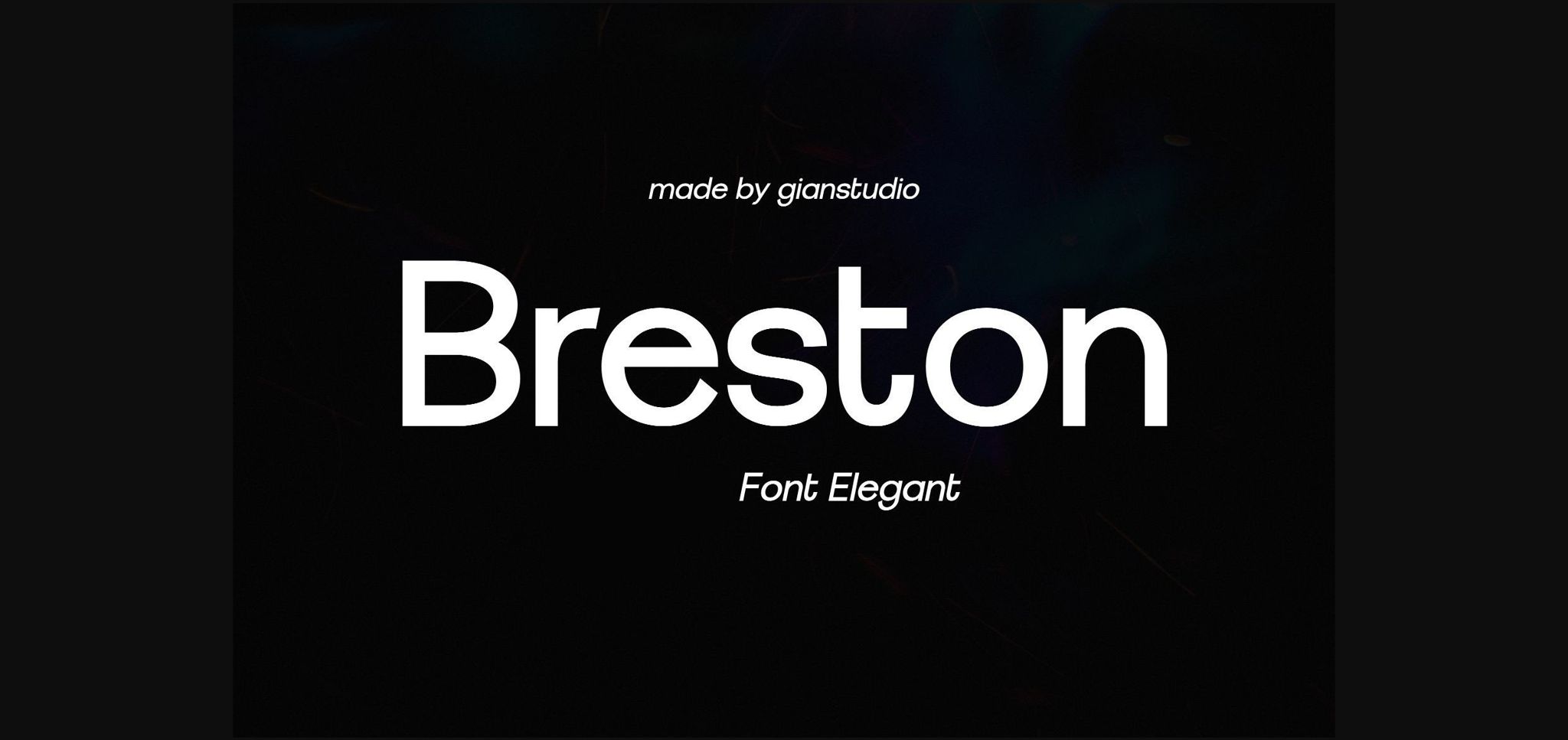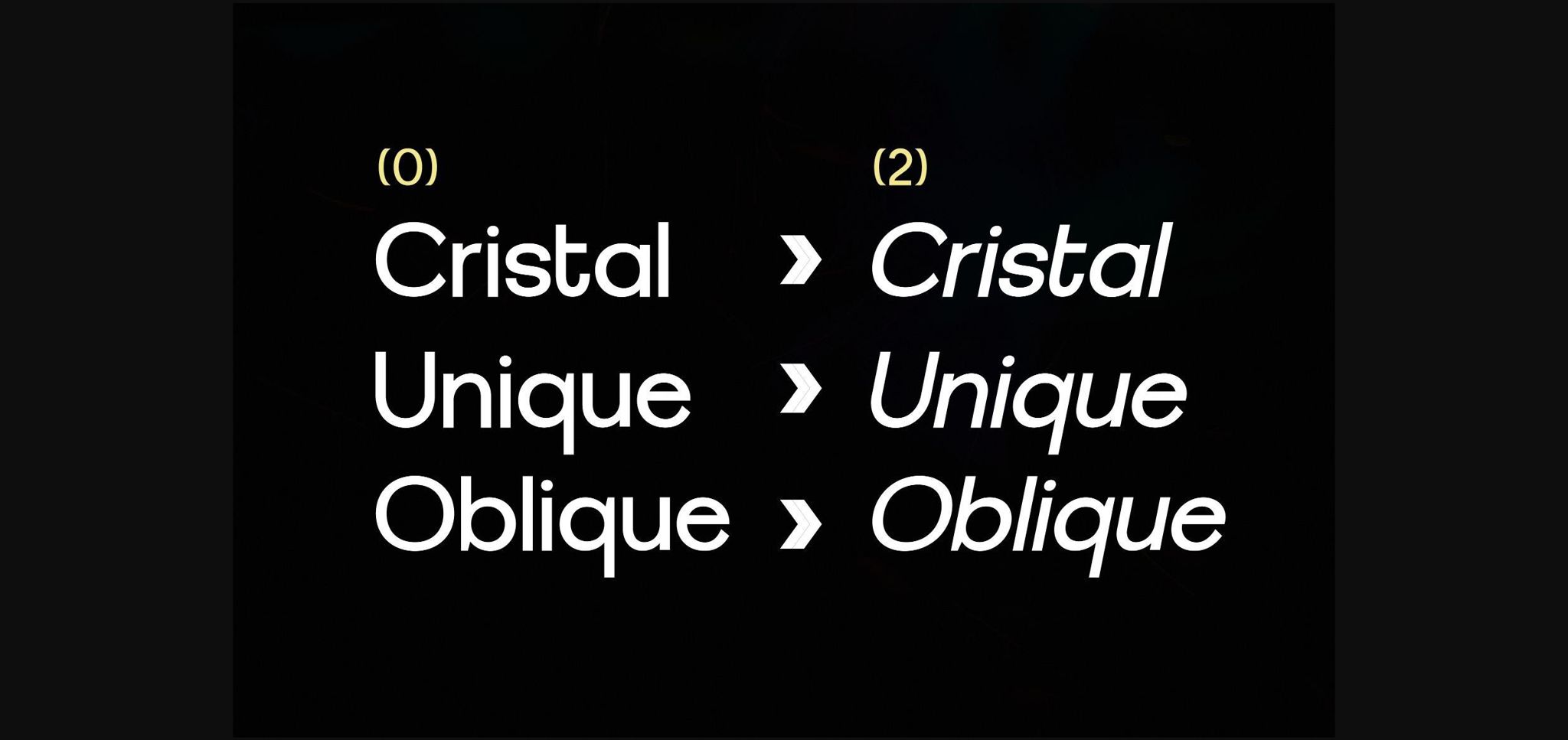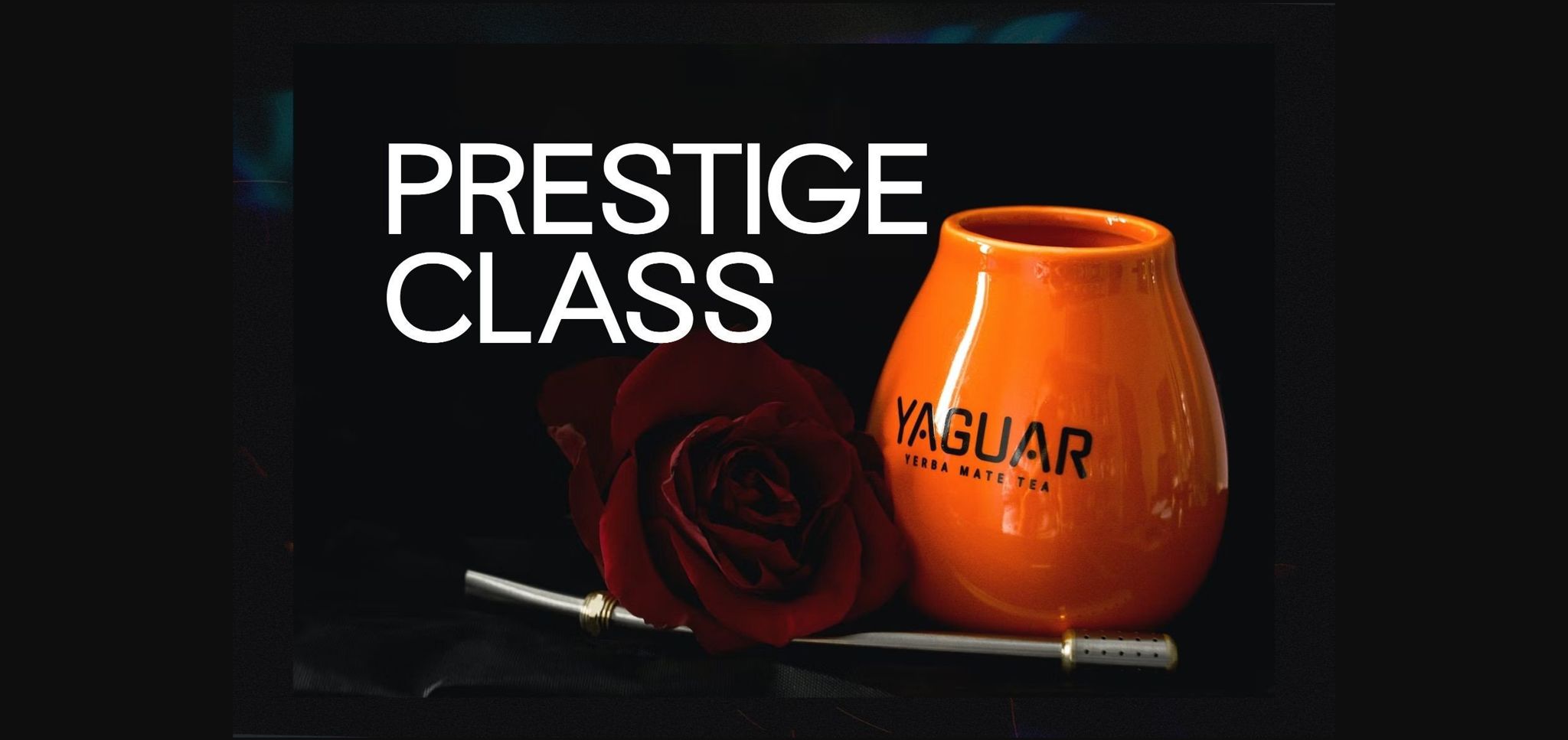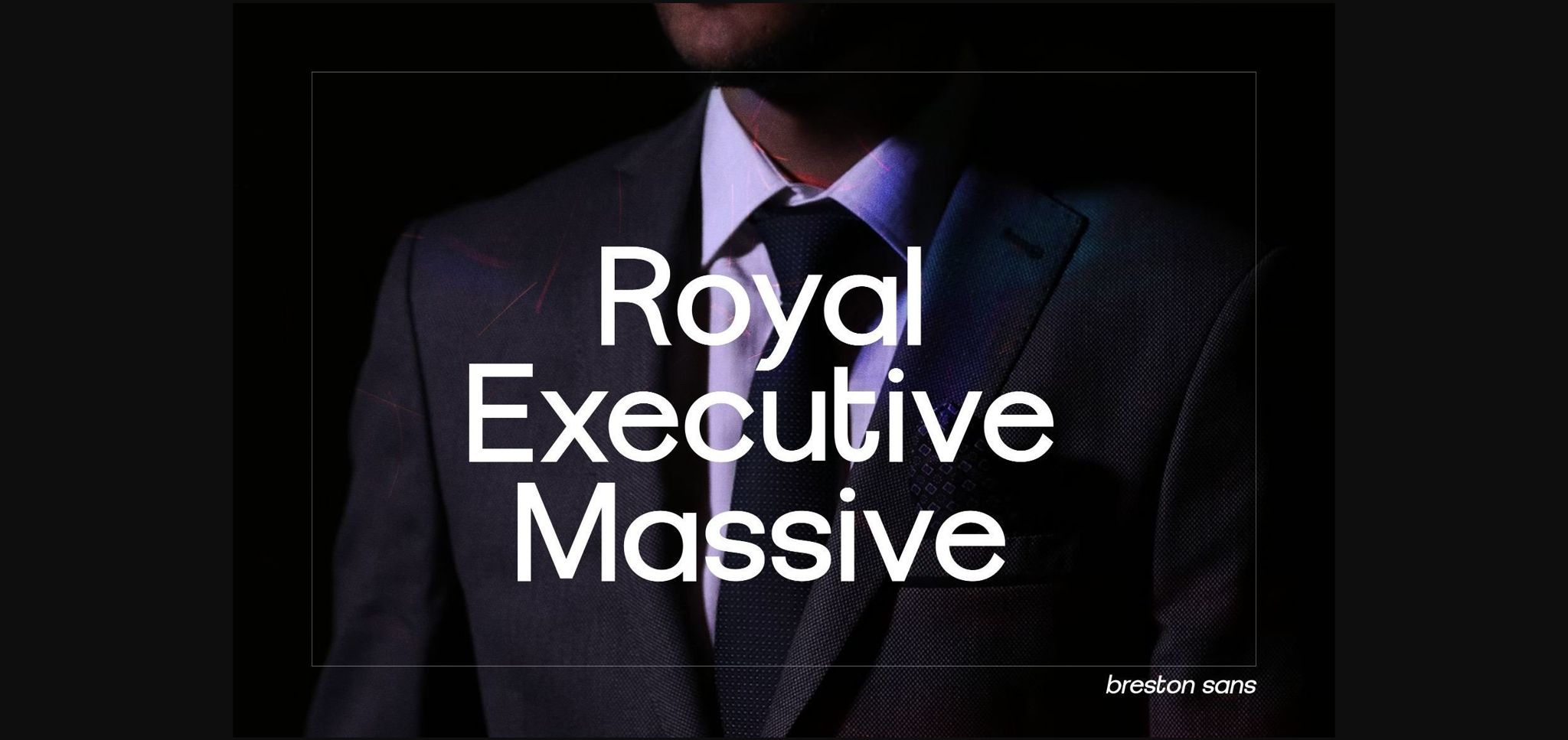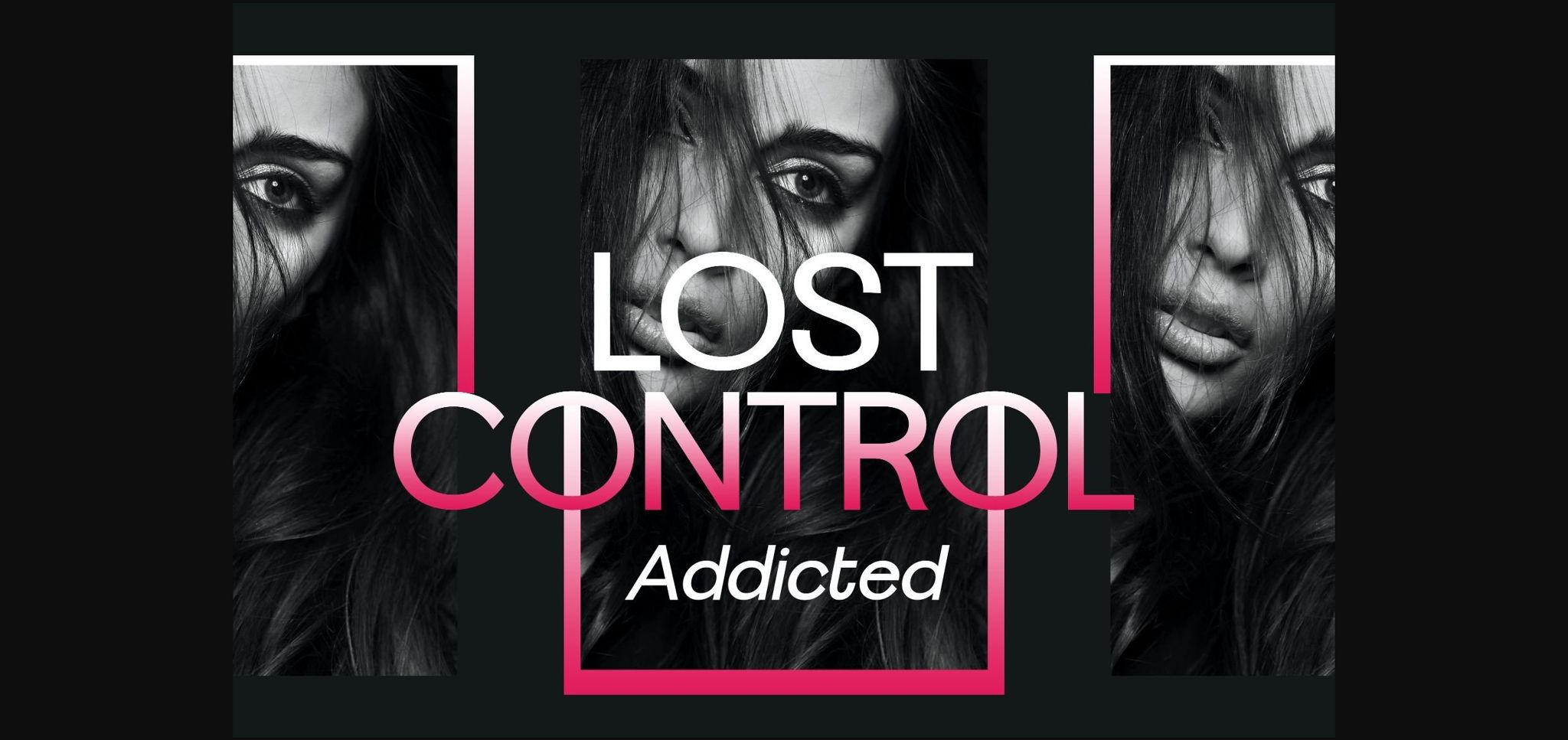
About Breston Font
Breston is a fashionable sans serif font carefully crafted and inspired by one of the world’s leading fashion brands. In general, it creates a luxurious and elegant design look.